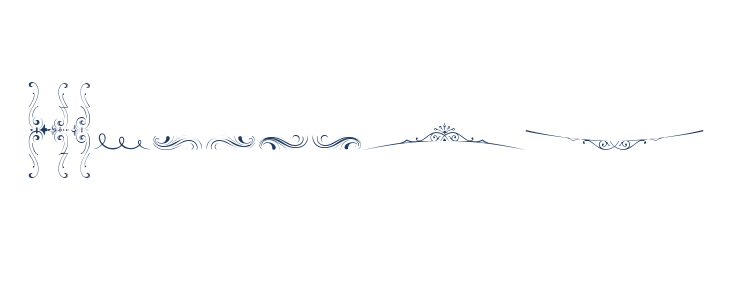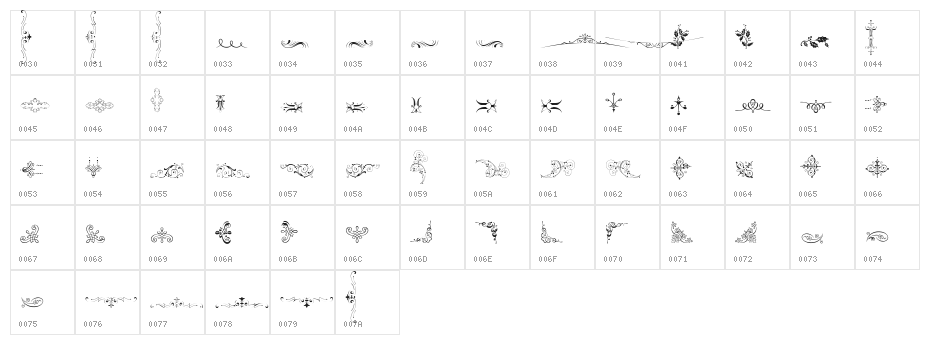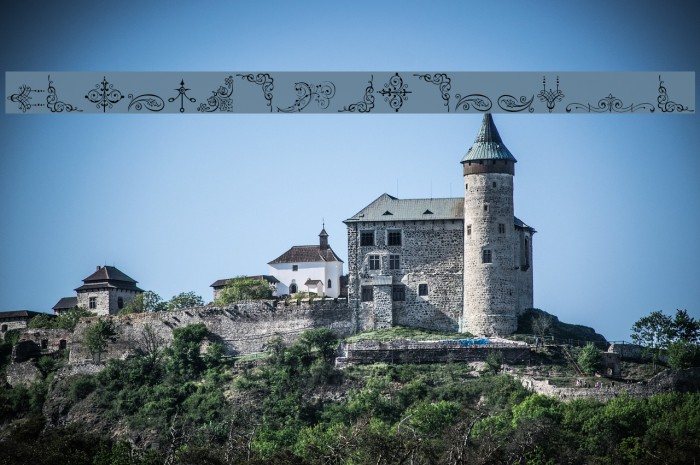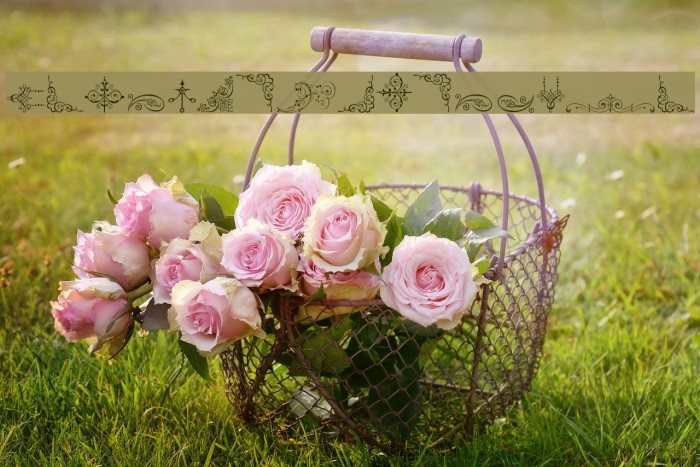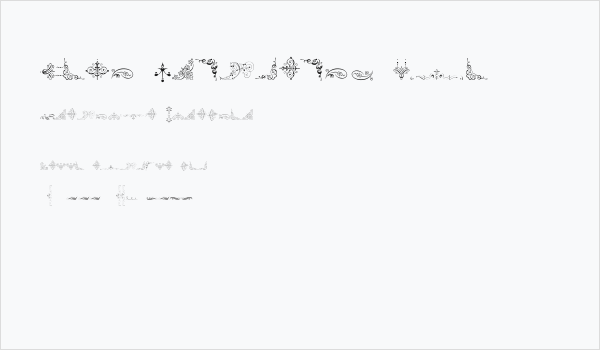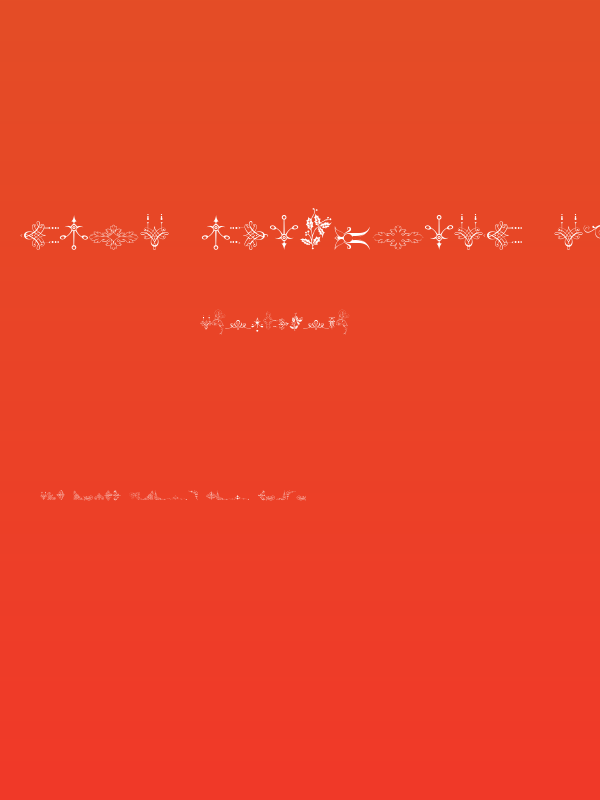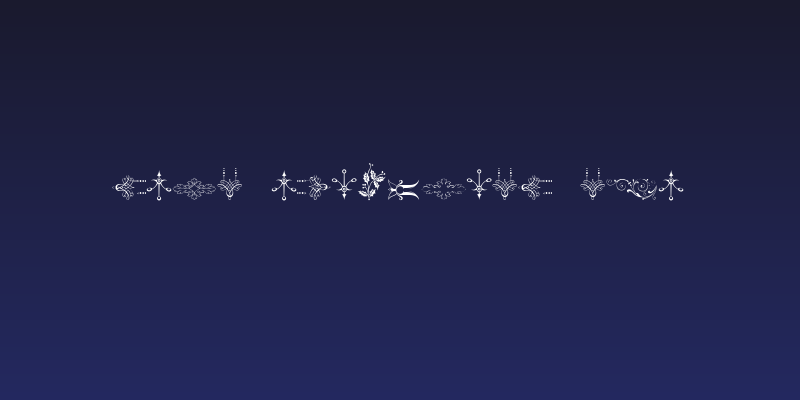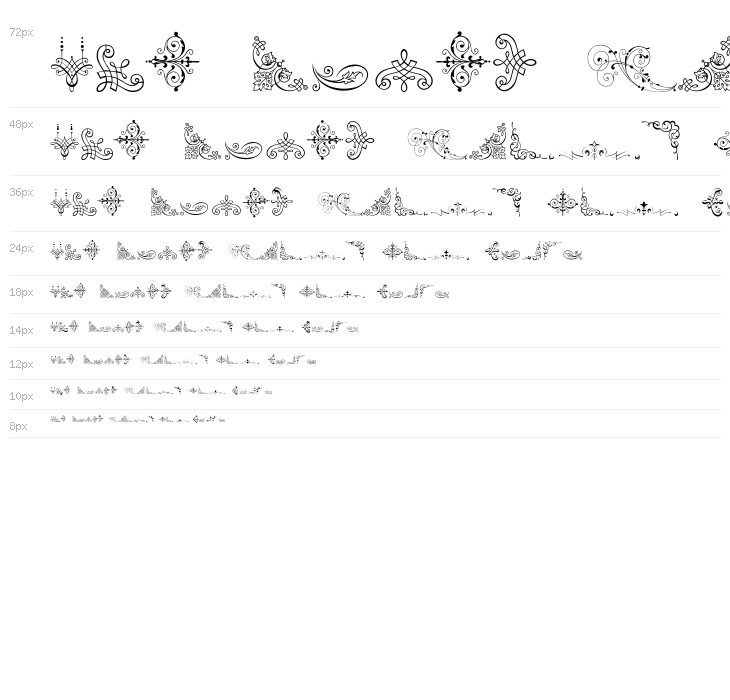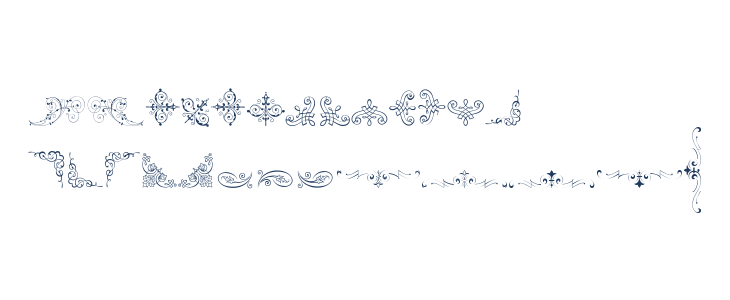
Soft Ornaments Two Font
Soft Ornaments Two Description
A collection of highly decorative, intricate ornamental glyphs featuring flourishes, swirls, floral motifs, and symmetrical designs. Each character is a unique embellishment, suitable for use as dividers, borders, or decorative accents. The lines are delicate, with varying stroke thicknesses and elaborate detailing.
| Overall Style | Vintage, Decorative |
| Use Case | Decorative accents, Borders, Dividers, Invitations |
| Proposed Projects | Wedding invitations, certificates, greeting cards, book covers, vintage branding, decorative borders. |